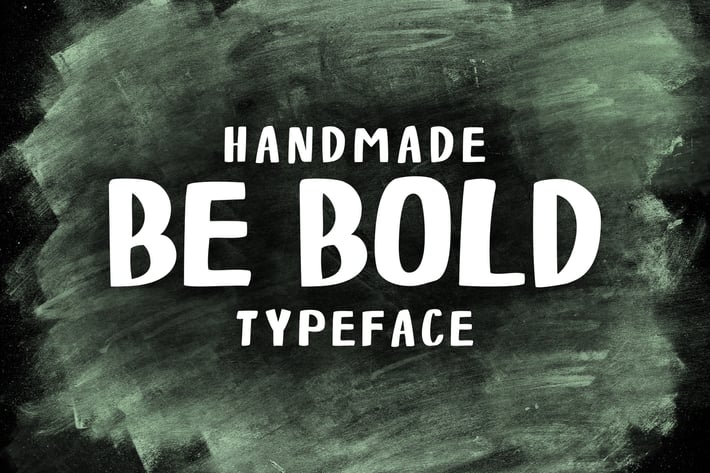
BeBold- Handmade Font
Itβs called BeBold Typeface. inspired by old hand drawn label bottle, It comes with Uppercase, Lowercase, Numbers, Punctuations, Currency, Multilingual characters, ligatures and Stylistic Alternates for the Uppercase letters & Lowercase.